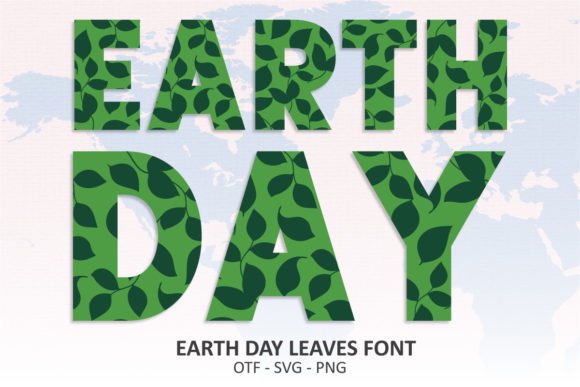
Earth Day Leaves: A Creative Font for Nature-Inspired Design
Every year, Earth Day brings a wave of green-themed projects, from social media campaigns to event posters and branded merchandise. Designers and creators often face the same challenge: finding visuals that feel fresh, authentic, and connected to nature without resorting to clichéd stock imagery. The right typeface can do more than just display words; it can set a tone, tell a story, and create an instant connection with your audience. This is where a specialized creative font like Earth Day Leaves enters the picture, offering a unique tool for projects that aim to celebrate and protect our planet.
Visual Character and Personality
Earth Day Leaves is a color font that moves beyond simple letterforms. Each character is meticulously crafted from intricate, detailed leaf patterns. Imagine the delicate veins of a fern, the broad shape of a maple, or the clustered foliage of a bush, all integrated into the strokes of letters. The result is a typeface that feels organic, textured, and alive. It’s not a flat, single-color design; the color version allows for nuanced greens and natural hues that mimic real foliage.
As a display font, its primary strength is in headlines, logos, and short bursts of text where its detailed artwork can be fully appreciated. It carries a personality that is simultaneously earthy and sophisticated. This isn’t a childlike or cartoonish leaf font. The level of detail suggests a premium font crafted for professional applications, lending a sense of care and quality to any project it graces. The visual weight and complexity make it a standout choice for projects needing to convey environmental awareness, organic purity, or a connection to the natural world.
Practical Applications Across Creative Projects
The versatility of Earth Day Leaves is one of its most compelling features. It’s a design asset built for real-world use across a wide spectrum of mediums. For brand identity, it can serve as the cornerstone for logos and packaging for eco-friendly brands, organic food companies, botanical gardens, or sustainable lifestyle blogs. The font’s inherent style helps build instant brand recognition and communicates core values without a single line of body copy.
In editorial design and web design, use it for section headers in magazines, blog post titles, or website banners to inject a thematic touch. It’s particularly effective for social media graphics—think Instagram story headers, Facebook event covers, or Pinterest pins that need to stop a scroll. For physical products, the applications are just as rich. It’s perfect for designing event tickets, thank-you cards, and stationery. Entrepreneurs and small business owners can use it on merchandise like tote bags, mugs, and shirts, creating products that resonate with an environmentally conscious audience.
Integrating Earth Day Leaves into Your Design Workflow
Adopting a new typeface into your toolkit requires some practical consideration. First, evaluate if its style aligns with your project’s goals. Earth Day Leaves excels where a strong, thematic statement is needed. It’s less suited for long paragraphs of body text due to its intricate detail. For readability in longer copy, pair it with a clean sans serif font or a simple serif font. A pairing like Earth Day Leaves for headlines with a font like Lato or Merriweather for body text creates a balanced and professional visual hierarchy.
Ultimately, Earth Day Leaves is more than just a set of letters. It’s a strategic design tool. It offers a way to visually articulate a commitment to nature, sustainability, and environmental stewardship. By thoughtfully integrating it into your logo design, packaging design, or marketing materials, you create a consistent and recognizable aesthetic that speaks directly to your audience’s values. The result is professional, engaging work that stands out in a crowded digital and physical landscape.